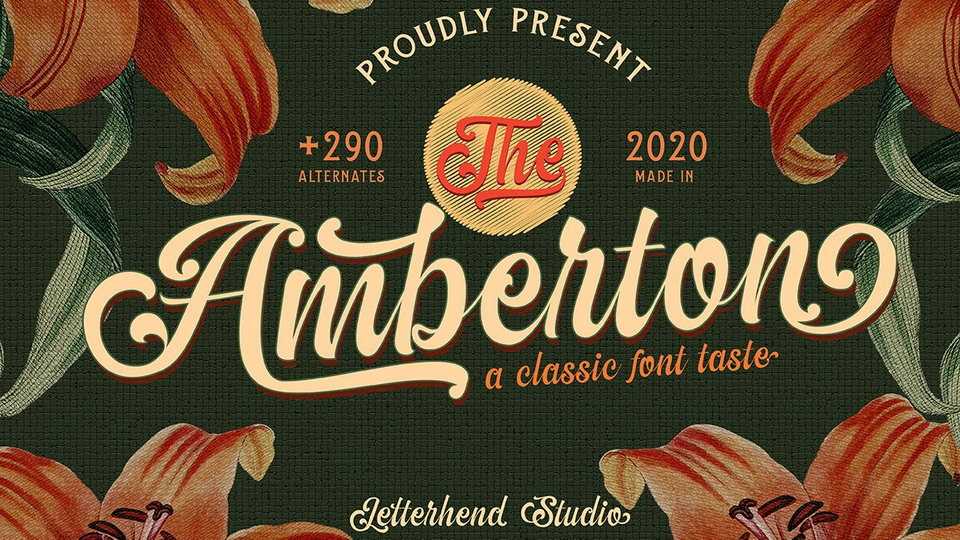
Download The Amberton font, a classic script typeface with unique swashes, inspired by classic floral ornaments. The Amberton is perfect to be applied especially in logo, and the other various formal forms such as invitations, labels, logos, magazines, books and more.